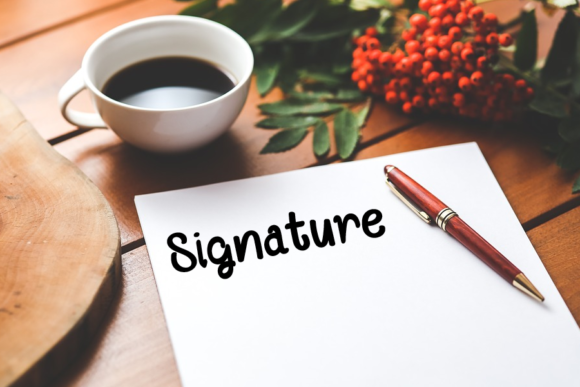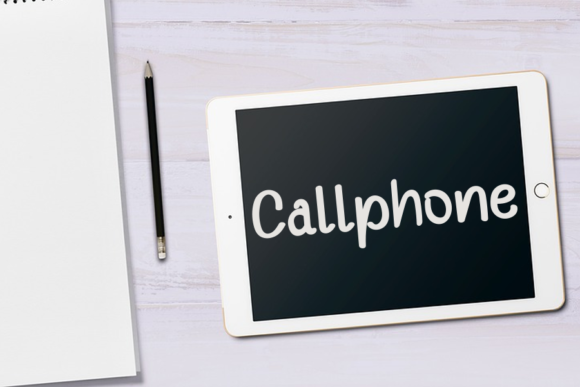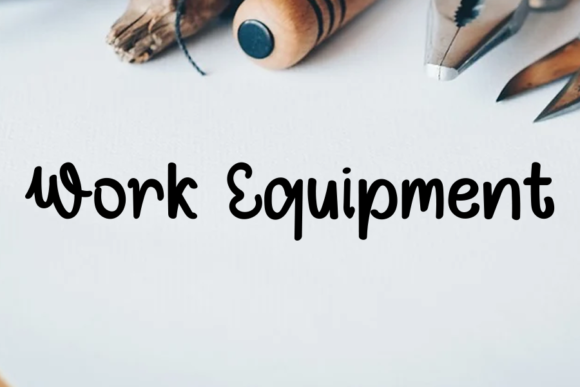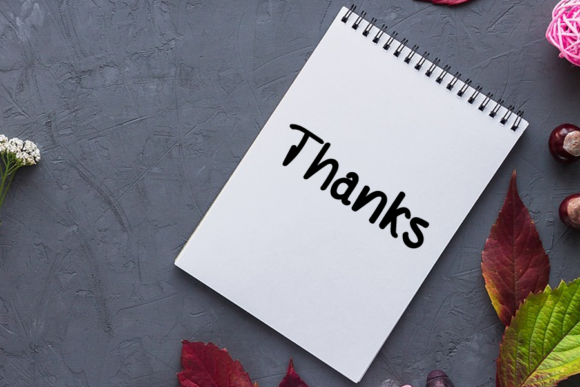
About Bunny Bear Font
Bunny Bear is a lovely script font featuring charming, playful characters that seem to dance along the baseline. Add this font to your most creative ideas, and notice how it makes them stand out!